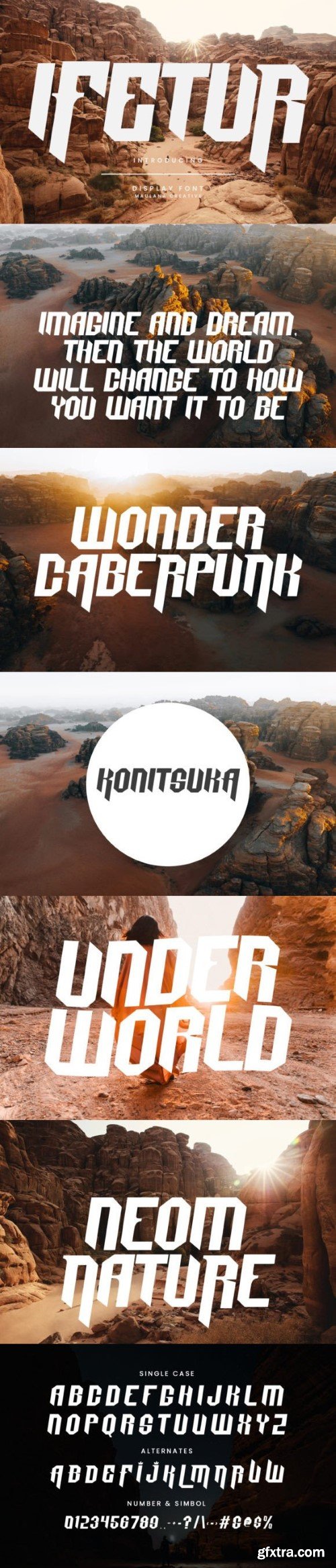
伊夫特字体
Ifetur is an incredibly cool and unique display font. It has a modern yet whimsical style and it will undoubtedly immerse your designs into a magical world.